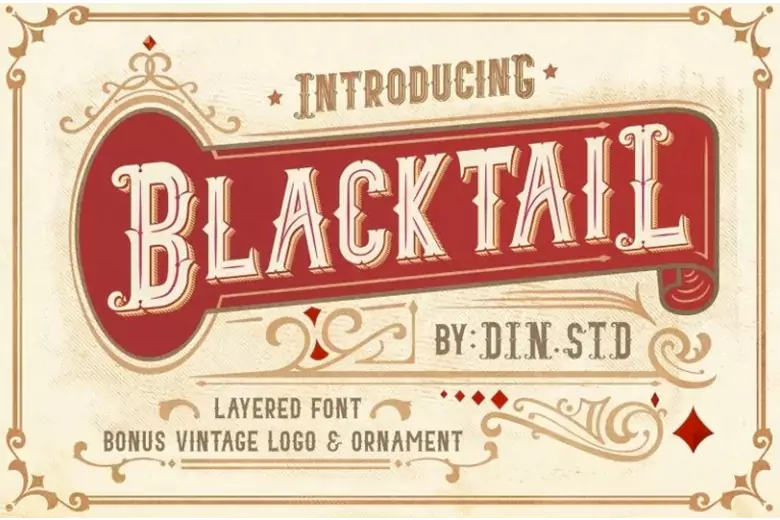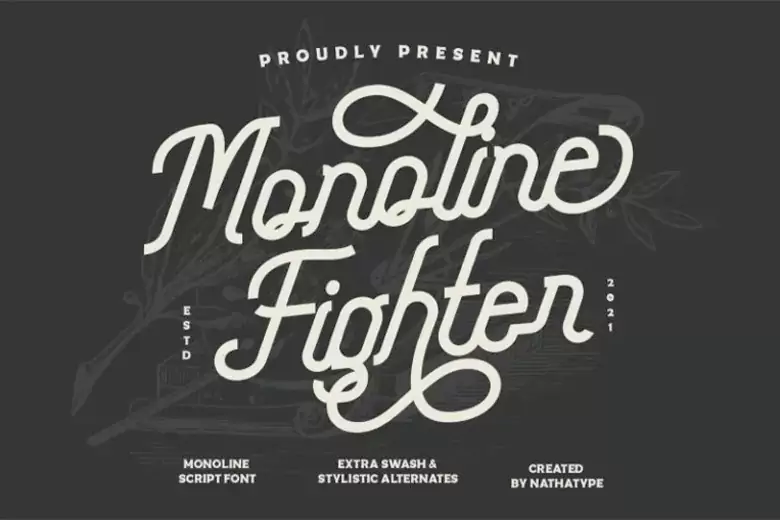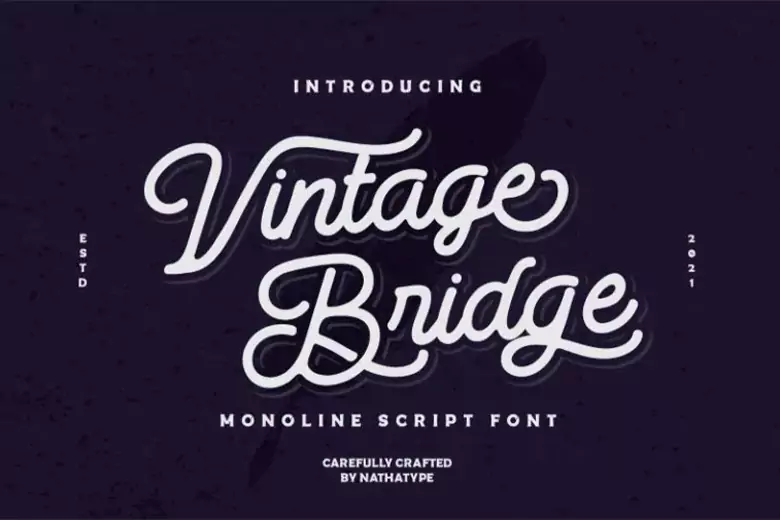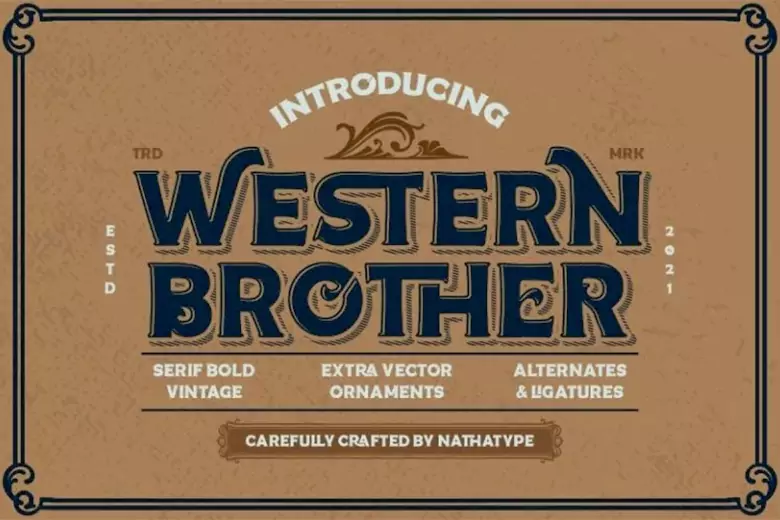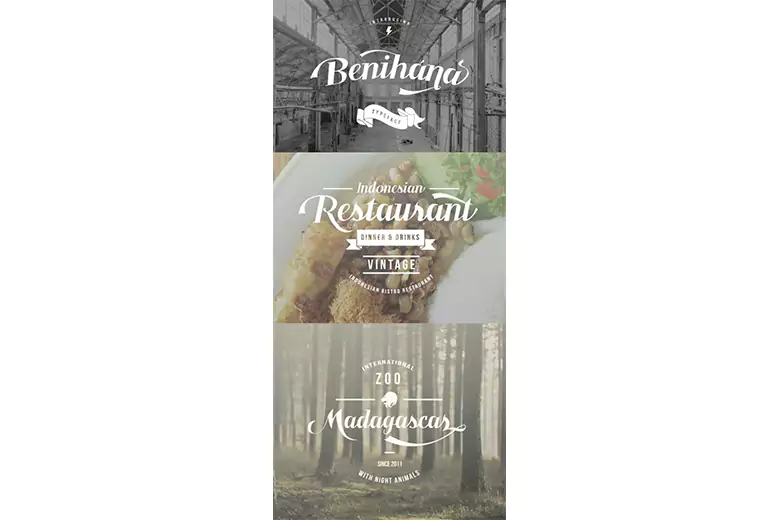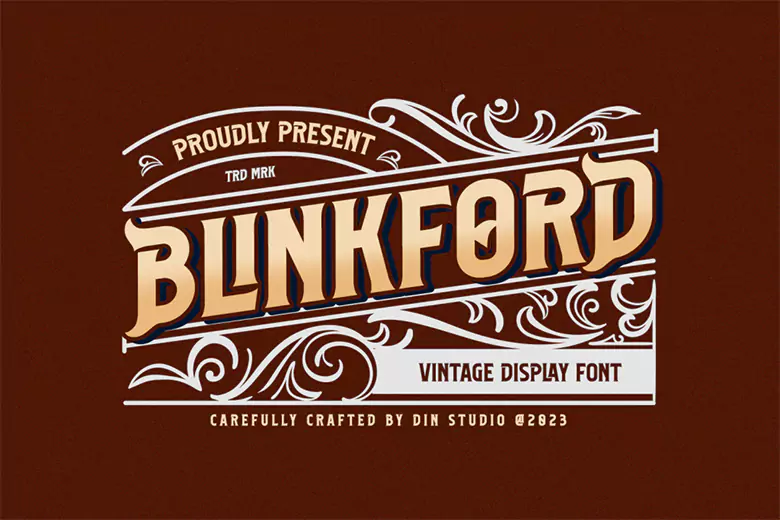
Searching for vintage fonts for your next design project? Explore our top 20 free recommendations, along with tips on how to use them effectively.
What comes to your mind when you think of a vintage font? Something old and outdated, isn’t it? Surprisingly, in the design world, it’s quite the opposite.
Vintage fonts refer to high-quality and easy-to-recognize fonts from the past. More simply, a vintage font is a set of characters styled in a way that reminds you of familiar times. These fonts tap into people’s emotions and encourage them to take action or engage.
Wondering which vintage fonts to use for your next project? Here are 20 stunning fonts to download and use in 2026!
Importance of vintage fonts
Vintage fonts have the ability to take you back in time and convey the right message with a sense of authenticity and assurance. They feature intricate details, unique letterforms, and ornamental designs that are nothing like the minimalist and modern fonts commonly used today. The emotional connection they create with audiences makes the design feel familiar and comforting. Also, their association with the past adds more depth and context to the design, giving it cultural significance.
Whether you’re designing a logo, working on a brand campaign, or creating a poster, vintage fonts can help evoke nostalgia and emotional responses from audiences, making them a powerful tool in design.
Here are a few ways vintage fonts can make a solid impact:
1. Builds a unique brand identity
Vintage fonts help create a distinctive brand identity that sets you apart in a competitive market. They narrate your story, establish credibility, and reflect your core values. Incorporating vintage fonts can help you communicate your brand’s purpose through words and visuals, ensuring you attract the right audience and establish immediate recall with them.
2. Creates visual intrigue
Vintage fonts often have intricate details and distinctive letterforms that can take your designs a notch higher. These fonts can break the uniformity of traditional typefaces and highlight significant elements, making your design more engaging and aesthetically appealing.
3. Evokes emotional connection
The nostalgic charm of vintage fonts can stir emotions and memories in your audience, creating a powerful connection. This connection can be a valuable asset in marketing and advertising, leaving a lasting impression and building brand loyalty.
4. Adaptable across platforms
Vintage fonts offer exceptional versatility and can be applied across a range of mediums, from print to digital. Whether you're planning social media content, designing a website, or producing print materials, these fonts can adapt to different contexts while retaining their timeless appeal.
Top 20 free vintage fonts to level up your upcoming project
Now that we’ve highlighted the importance of vintage fonts, let’s take a look at some of the most incredible free vintage fonts that you can use to take your next typography project to the next level. These fonts cover a range of styles, from elegant serifs to hand-drawn scripts, offering endless creative possibilities and allowing you enough flexibility to take your pick.
1. Vintage Melody
Vintage Melody is an elegant and modern font with a vintage touch, featuring uppercase and lowercase letters. Suitable for professional branding, logos, merchandise, and even wedding invites, this attractive typeface includes stylistic alternatives, ligatures, and swashes. It brings a blend of classic elegance and modern versatility to any creative project.
2. Breaut Clais
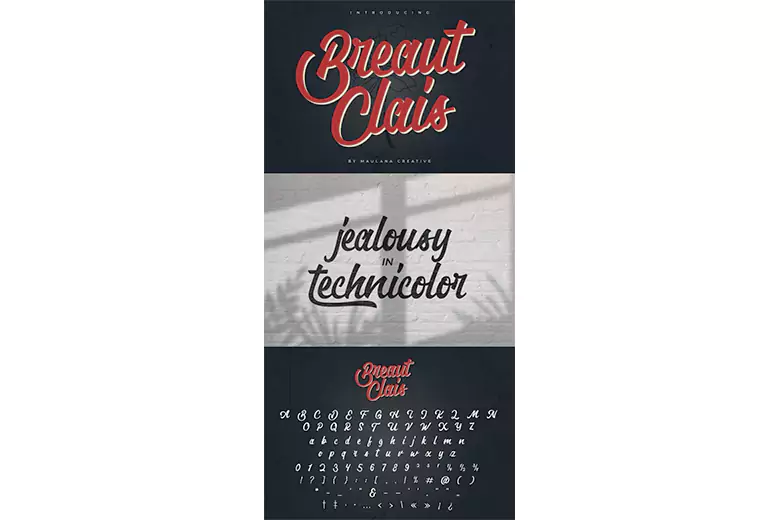
Image Courtesy: Graphic Design Junction
Breaut Clais is a vintage script font type that exudes a classic and timeless feel. When used with its OpenType features, particularly ligatures, the font resembles natural handwriting, adding a sophisticated look to your designs. Its refined and highly legible appearance makes it an excellent choice for luxurious and high-end brands looking to evoke a sense of quality and style.
3. Black Arcade
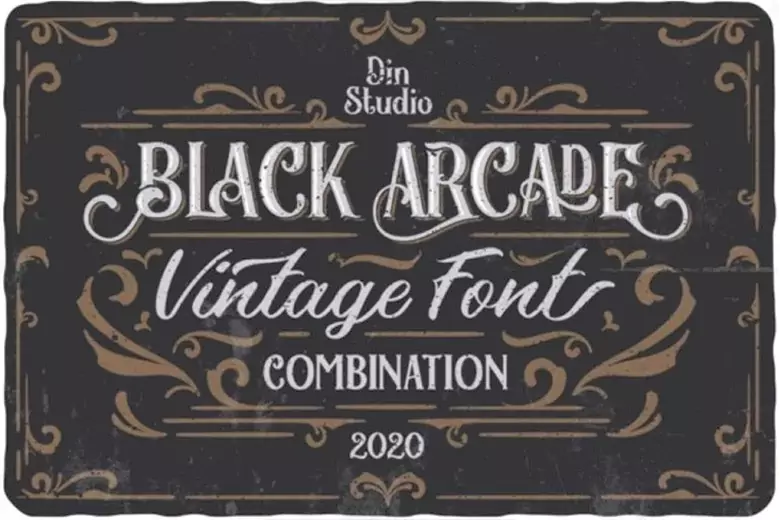
Image Courtesy: Din Studio
Black Arcade is a versatile vintage typography set featuring five distinct styles, complete with ligatures and ornamental details. Its timeless, classic aesthetic makes it visually appealing and highly adaptable, making it perfect for a wide range of projects.
4. Vintage Rotter
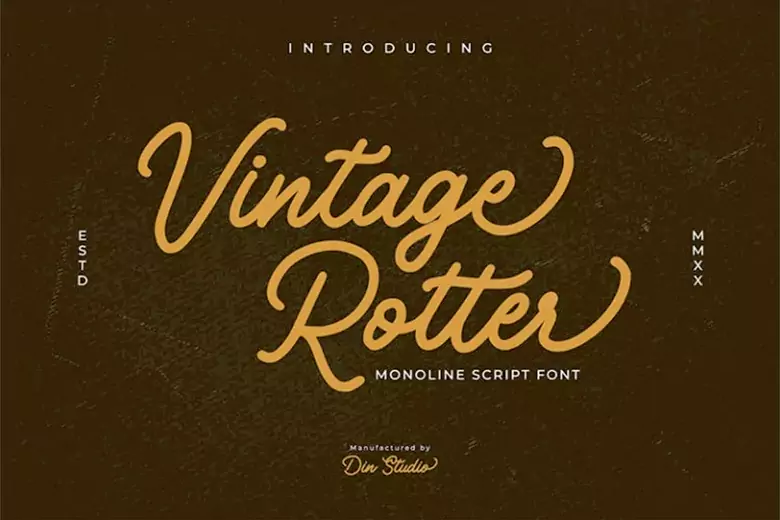
Image Courtesy: Din Studio
Vintage Rotter is an elegant, old-school typeface that combines interconnected lettering with exceptional readability. Its seamless, flowing design brings a touch of sophistication, making it well-suited for both digital and printed designs. It adds refinement to any project, from branding and logos to invitations and editorial layouts. The versatile nature of this font ensures that it can elevate a variety of design styles, giving each a timeless yet contemporary feel.